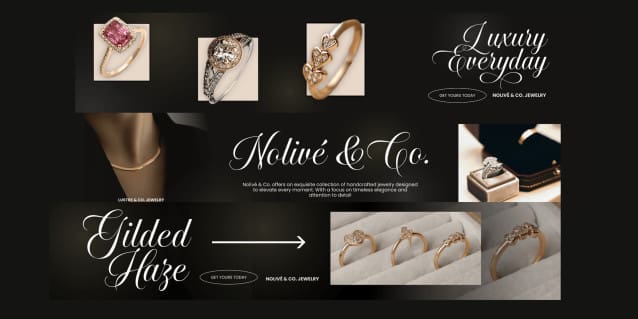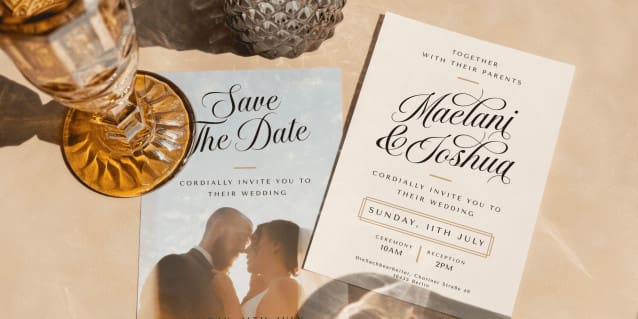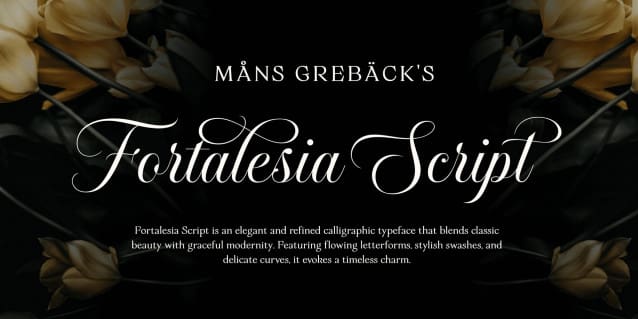
Fortalesia Script Font
Fortalesia Script Font is a flourish-rich calligraphy typeface, designed with elegance and flair. It merges traditional handwriting with luxurious curves, each stroke crafted to enhance the drama and movement of the lettering. The capital letters sweep into wide, expressive loops, while the lowercase maintains classic balance with intricate swashes that create a strong rhythm across words.
This font brings to mind handwritten wedding invitations, high-end branding or ceremonial titles, where beauty and legibility walk hand in hand. The graceful exaggeration of its loops and terminals adds a ceremonial touch without overwhelming the clarity of the script.
The font is built with advanced OpenType functionality and guaranteed top-notch quality, containing stylistic and contextual alternates, ligatures and more automatic and manual features; all to give you full control and customizability.
Designed and created by Mans Greback, a prolific type designer specializing in high-quality script and display fonts. His work is known for its craftsmanship and attention to detail, blending artistic expression with technical precision.